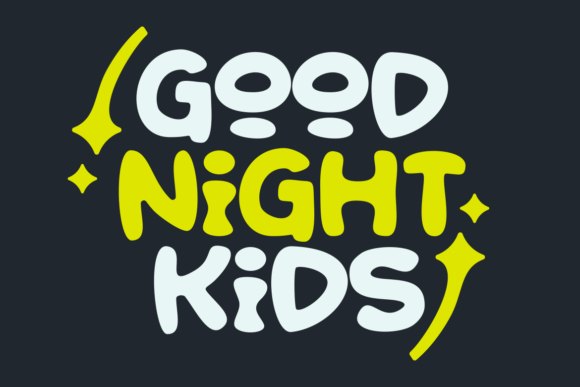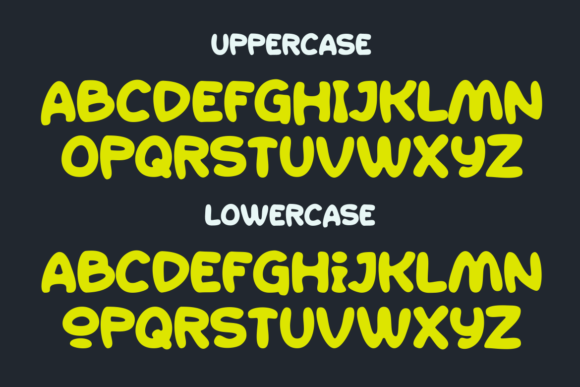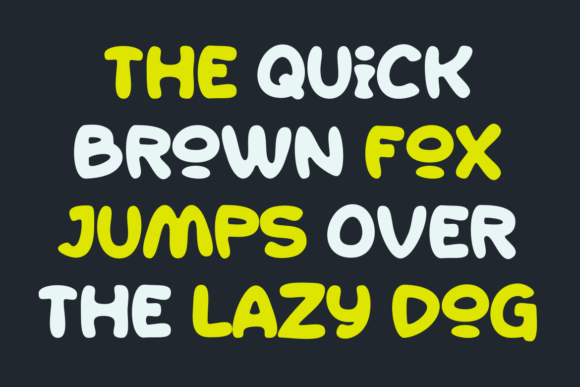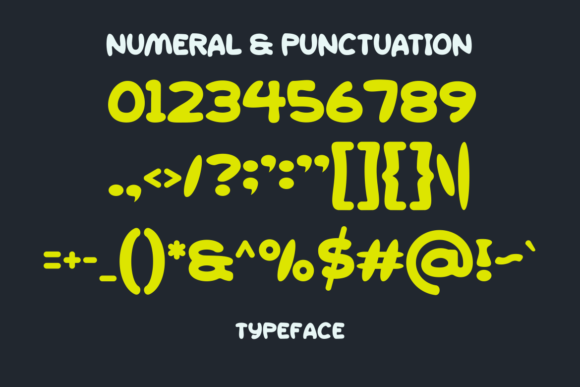
Introducing Delion Font: The Ultimate Playful Companion for Designers
Have you ever found yourself staring at a blank canvas, desperately searching for the perfect font to bring your creative vision to life? That’s exactly where Delion Font comes in – a delightful, playful font designed to add a touch of whimsy and charm to your projects.
Delion Font is the perfect companion for designers looking to create engaging content for greeting cards, invitations, posters, and more. Its versatility makes it an outstanding choice for a wide range of contexts, from baby clothing to book covers, and even logos and presentations. With Delion Font, you’ll be able to breathe new life into your designs and make a lasting impression on your audience.
Delion Font Key Features
- Unique Characteristics: Delion Font features a unique blend of modern and vintage elements, making it suitable for a wide range of design projects.
Delion Font Review
As a designer, I was excited to try out the Delion Font. Here’s my honest review:
- The Delion Font has a unique and modern aesthetic that’s perfect for contemporary designs.
- The font is highly legible, even at small font sizes, making it ideal for digital use.
- The font family includes a range of weights and styles, giving designers plenty of flexibility.
- The Delion Font may not be suitable for traditional or formal designs, as its modern feel may clash with more classic aesthetics.
- The font’s bold weights can be a bit too aggressive, making them difficult to read in certain contexts.
- The font family could benefit from additional languages and character sets to make it more versatile.
Overall, I think the Delion Font is a solid choice for designers looking for a modern and stylish font. While it may have some limitations, its unique aesthetic and high legibility make it a great option for digital designs. With a bit more development, I think the Delion Font could become a go-to choice for designers.
Delion Font Practical Application Guide
Delion Font is ideal for creating elegant and sophisticated designs in Canva. Use it for headings, titles, and body text to add a touch of luxury to your projects.
Delion Font is perfect for:
- Editorial and publishing projects
Alternatives to Delion Font